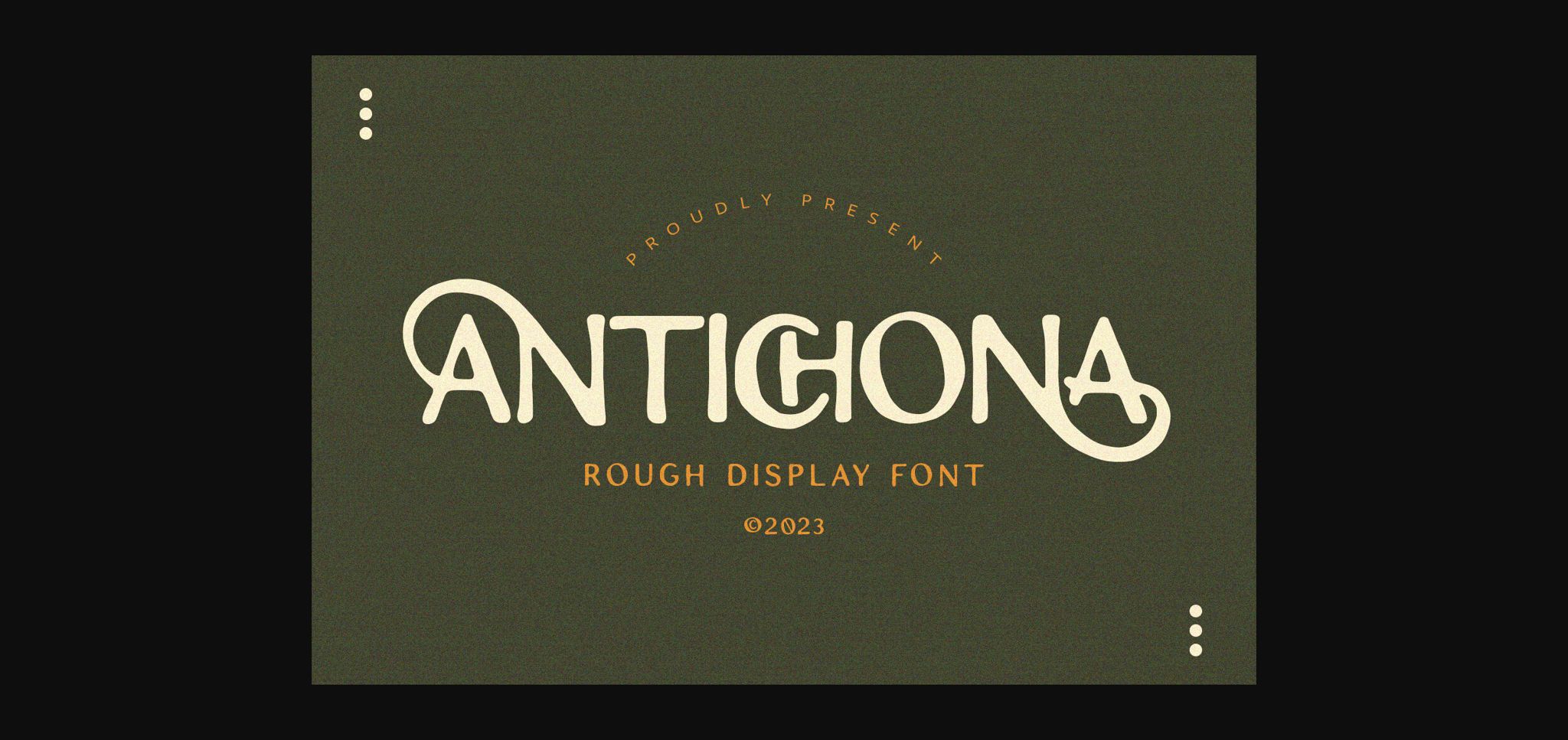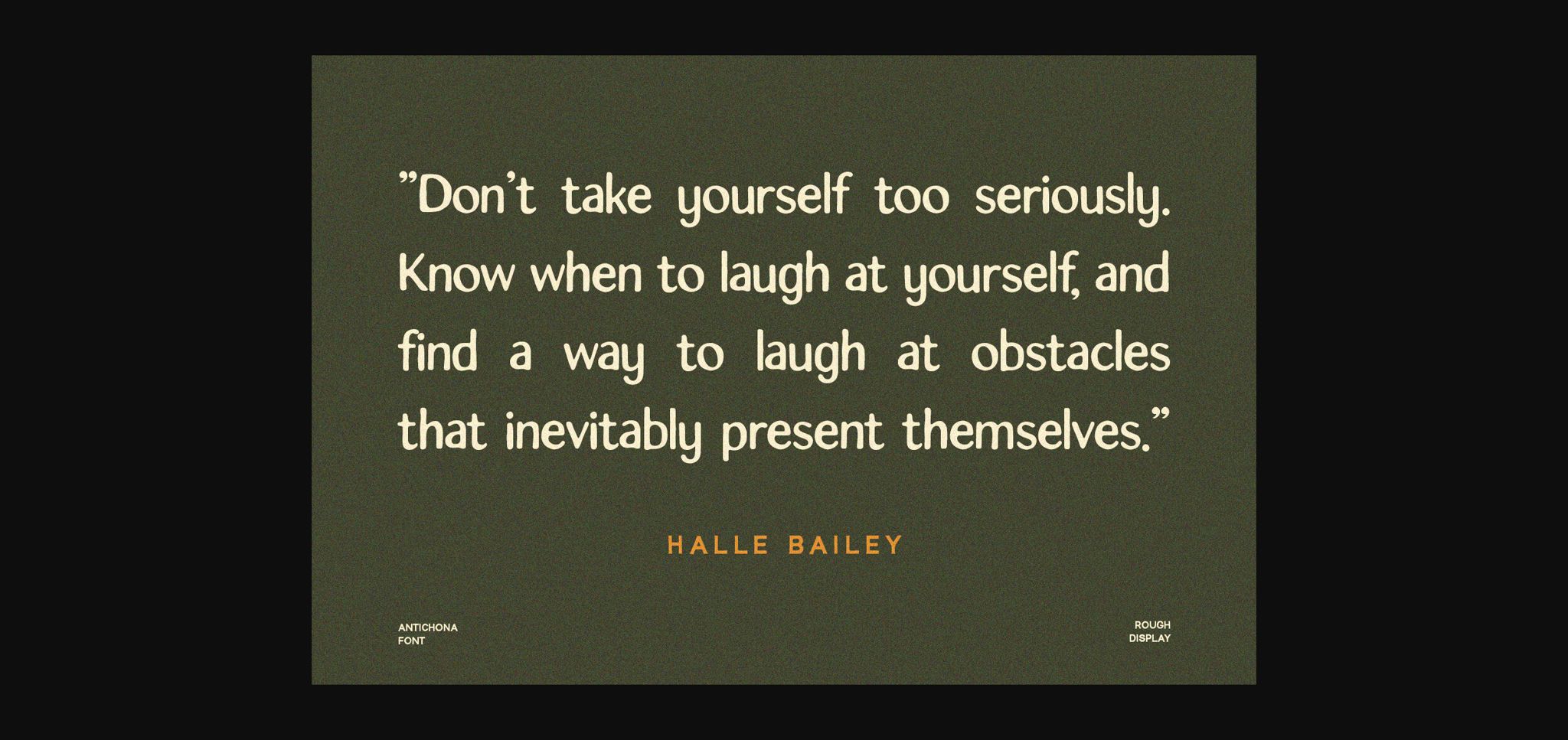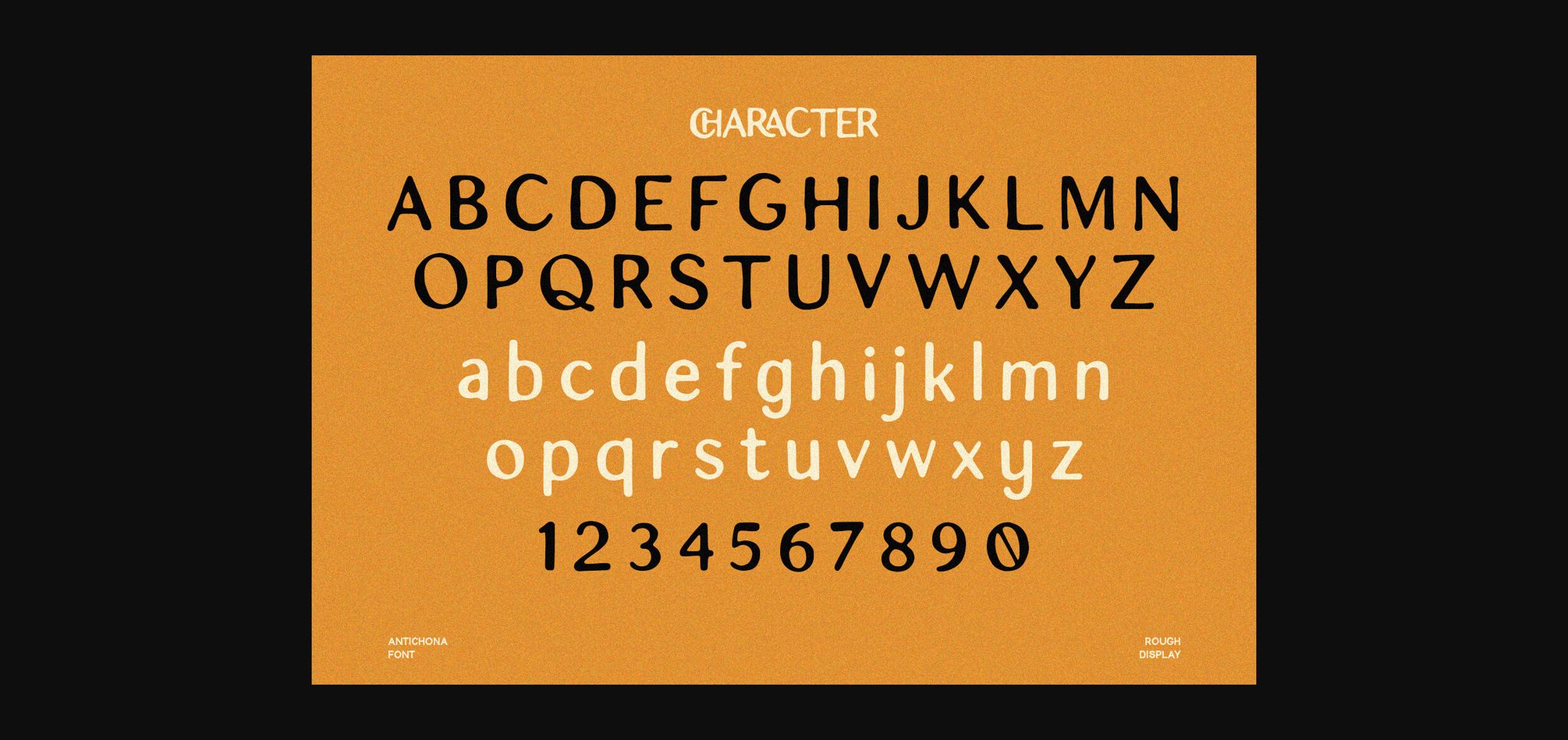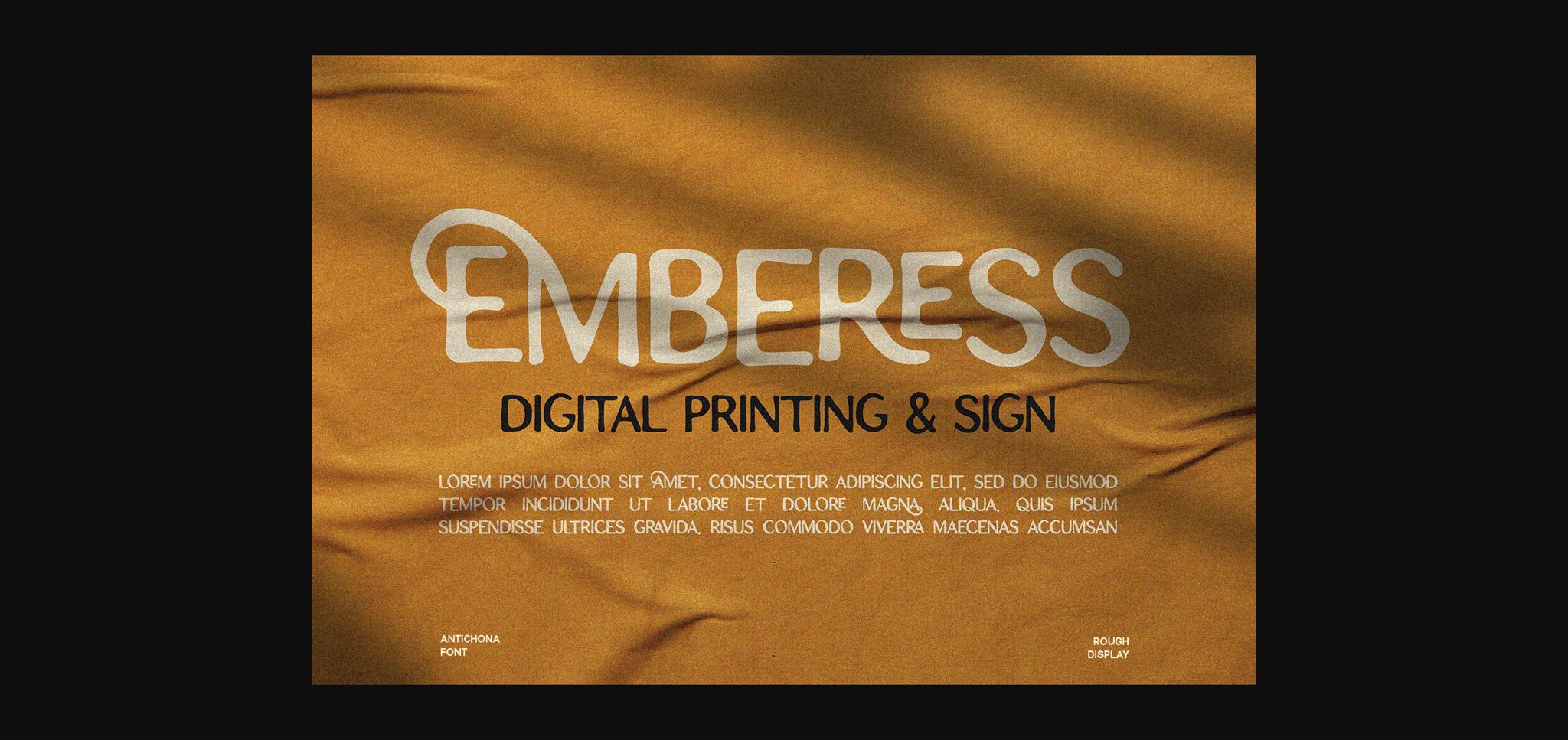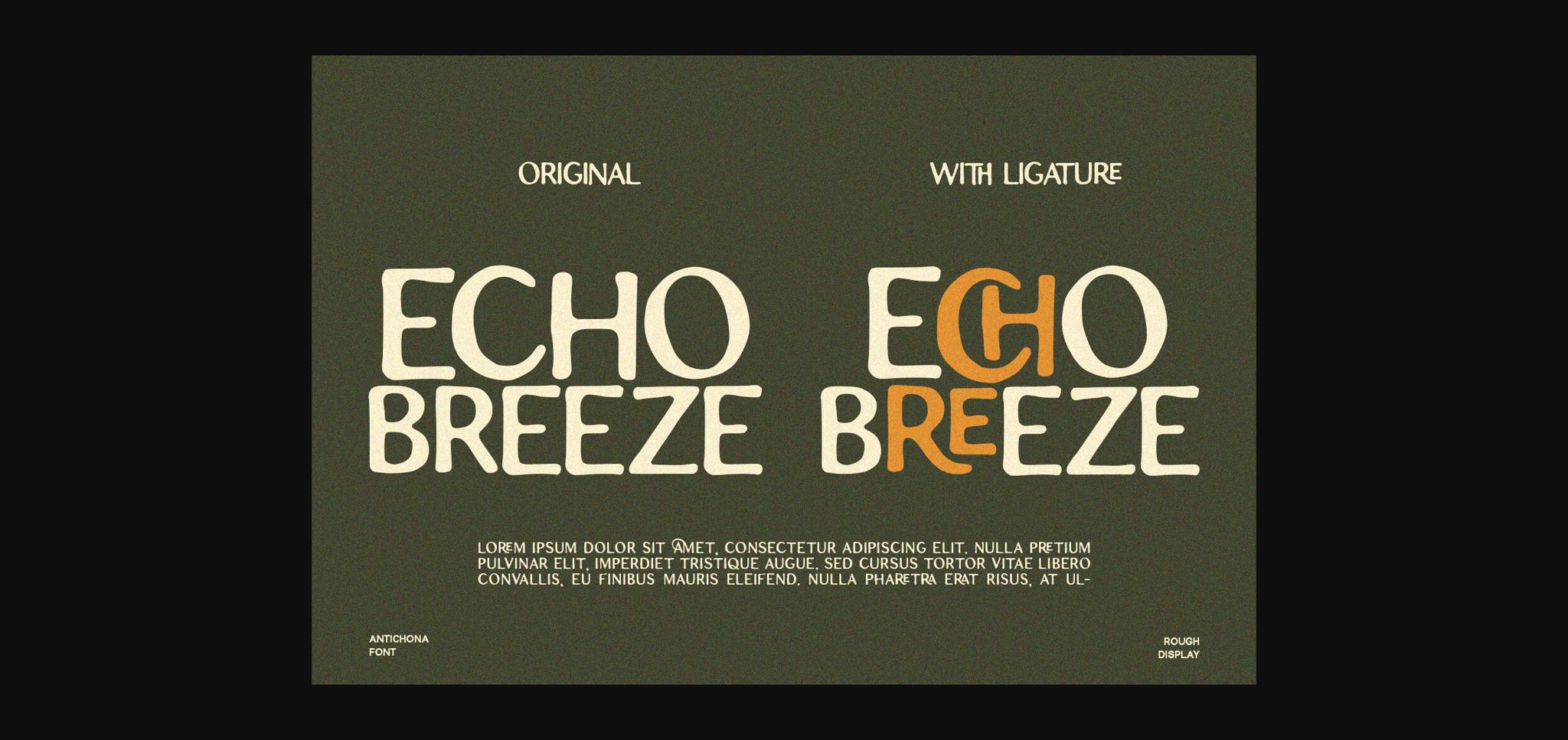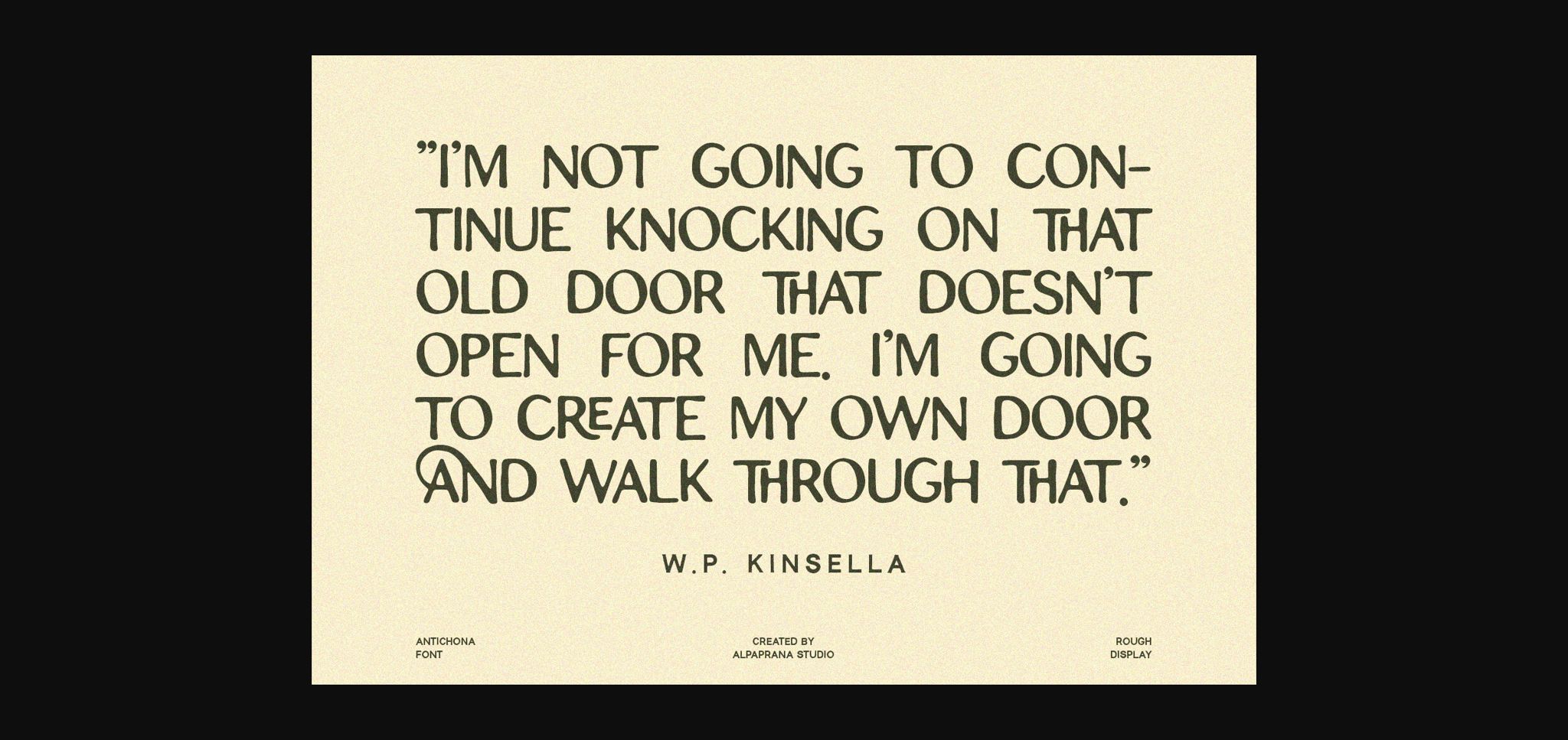
About Antichona Font
Antichona, a retro sans-serif font, effortlessly captures the essence of bygone eras with its stylish and timeless design. Clean lines and subtle curves evoke a sense of nostalgia, while the modern twist adds contemporary allure. Perfect for projects seeking a harmonious blend of vintage and chic aesthetics.